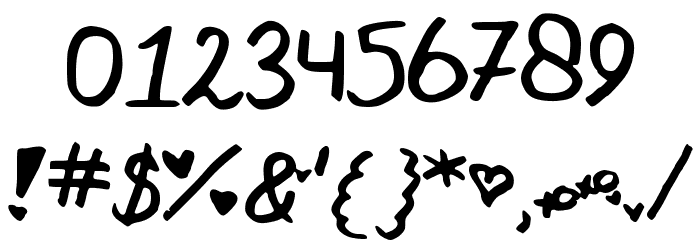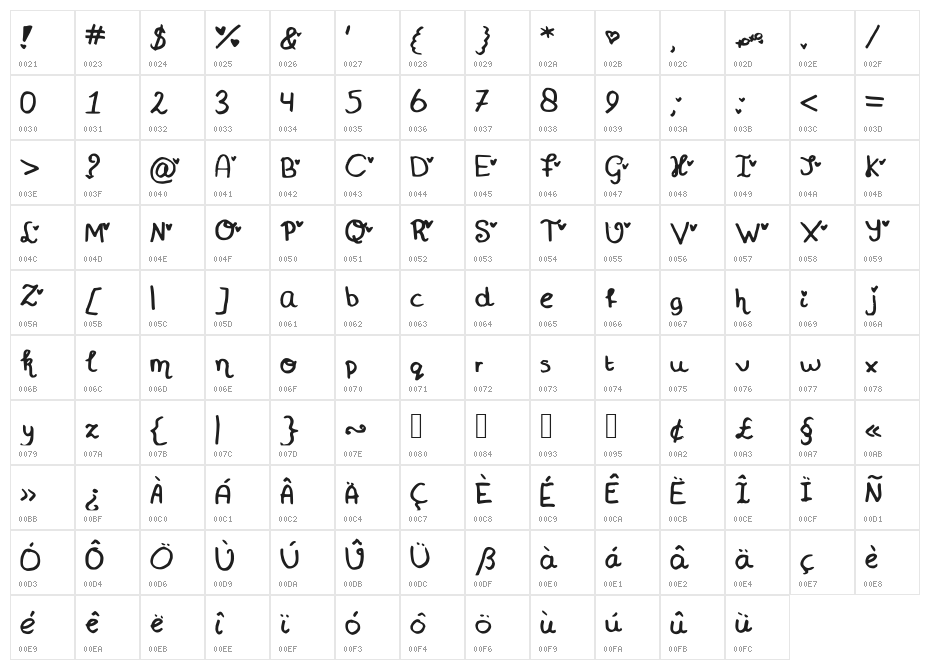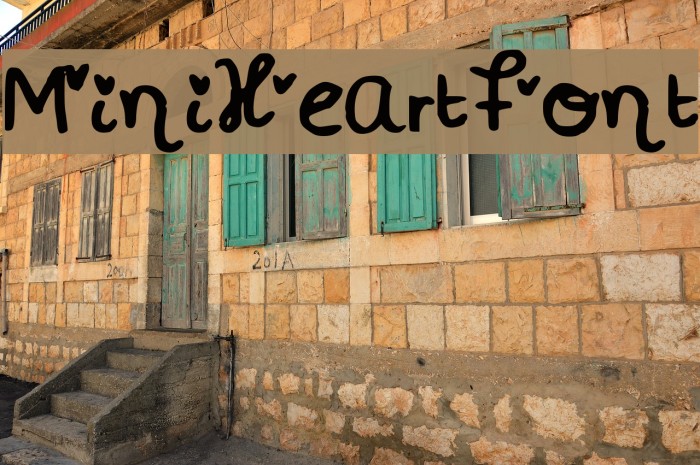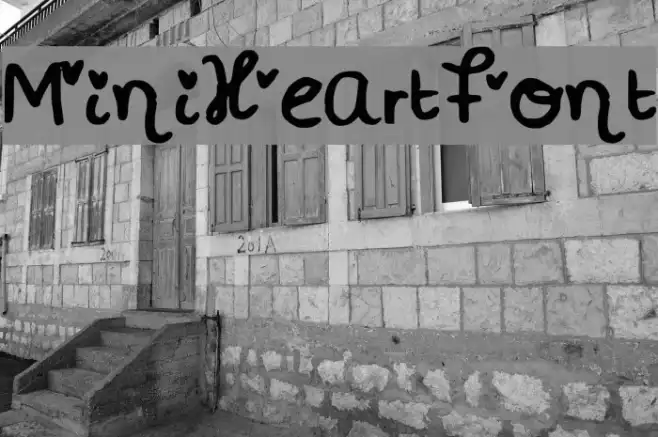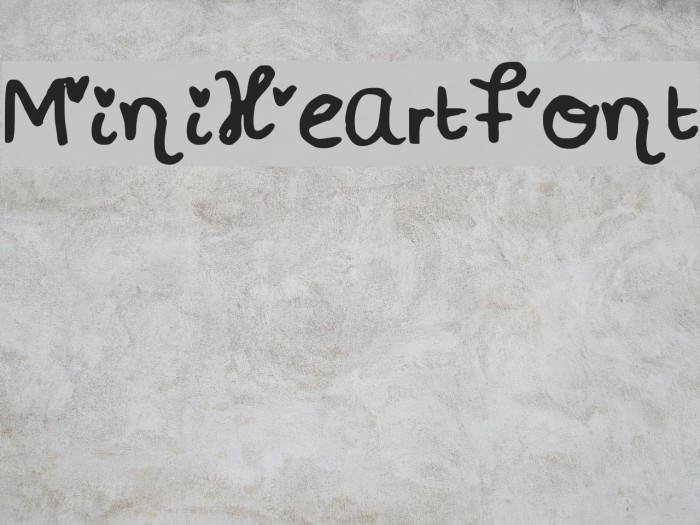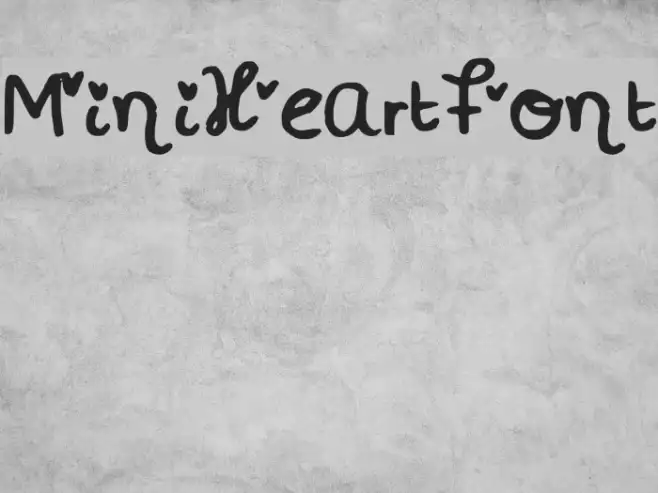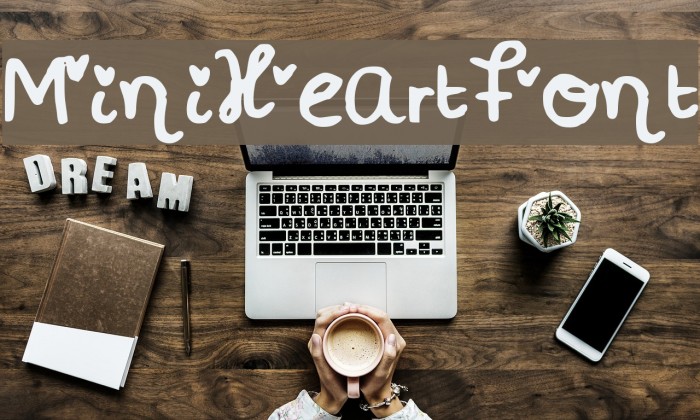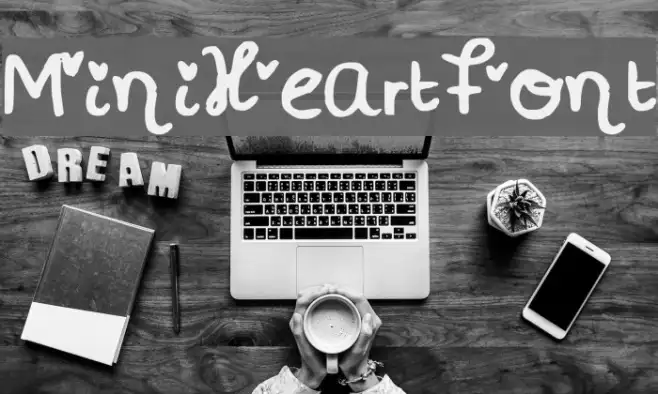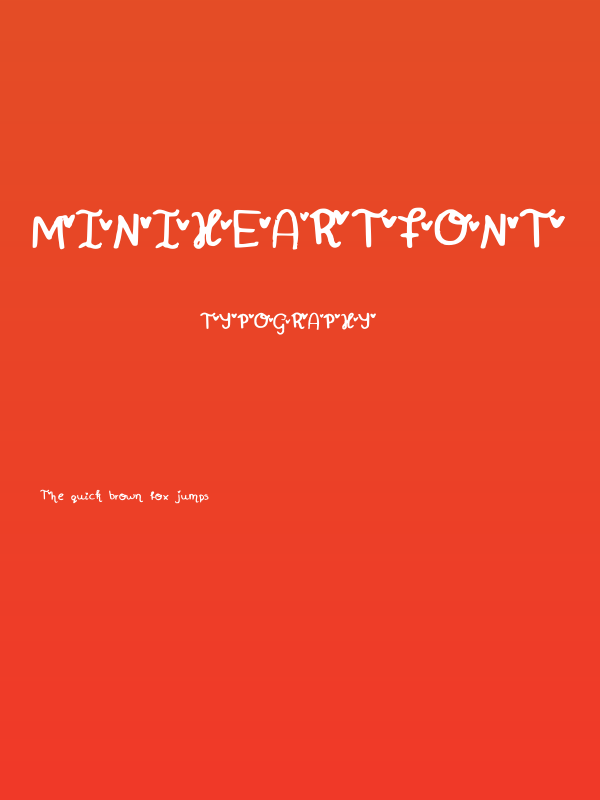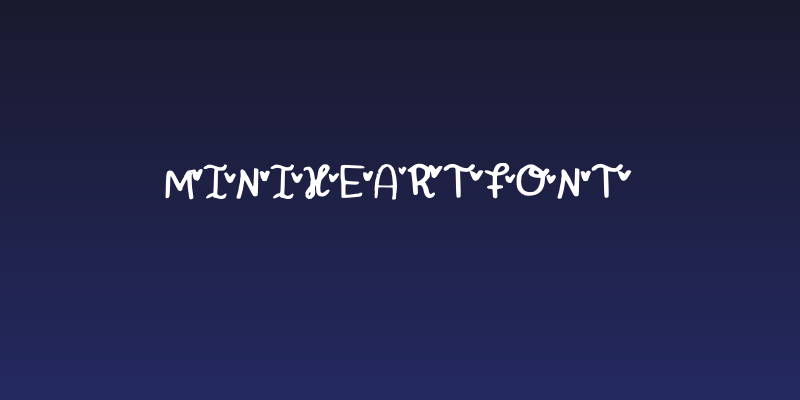
MiniHeartFont Font
MiniHeartFont Description
This playful and whimsical font features heart-shaped embellishments integrated into each character, creating a charming and romantic aesthetic. The letters are bold and rounded, with a hand-drawn feel that adds a personal touch. The uppercase and lowercase letters maintain a consistent style, with the heart motifs appearing prominently on the uppercase letters. Numbers and special characters are also included, each with unique heart accents that enhance the overall theme. This font is perfect for projects that require a fun and loving vibe, such as greeting cards, wedding invitations, or playful branding.
| Proposed Projects | Ideal for greeting cards, wedding invitations, playful branding, and romantic-themed designs. |